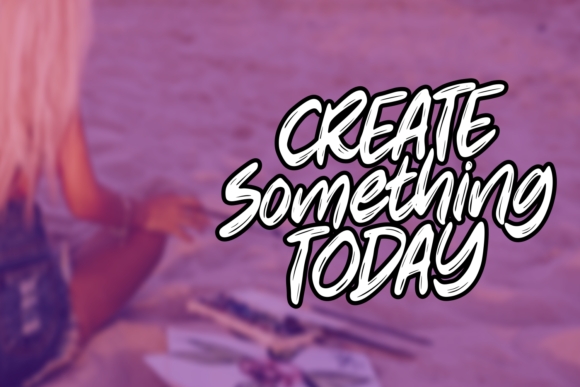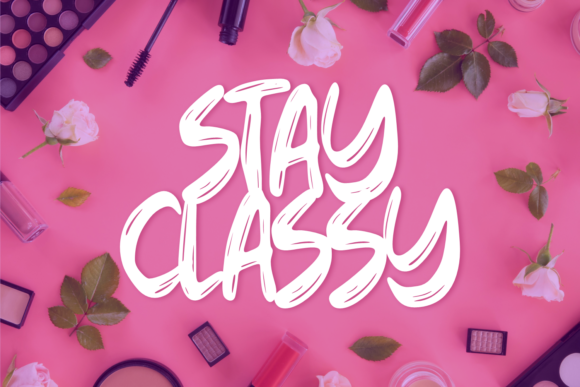
Cozy Beach Font
db-ku.com - Script & Handwritten -- Cozy Beach is a simple, fun, and relaxed Script font. This font’s big brush strokes make it easy to read and versatile for business cards, websites, quotes, websites, and more.